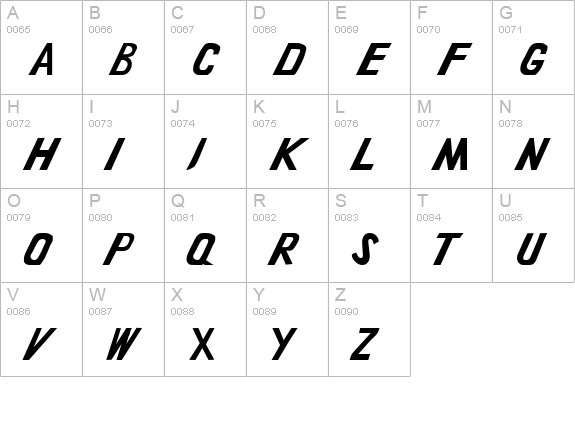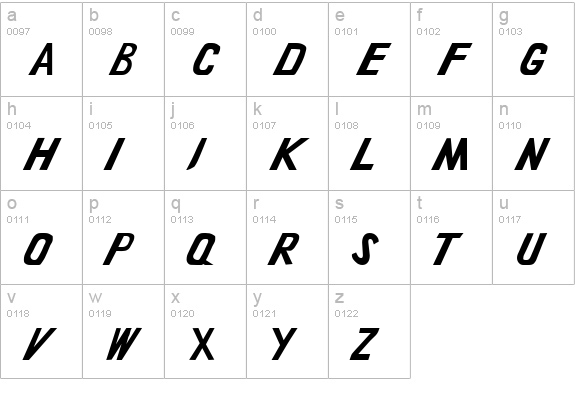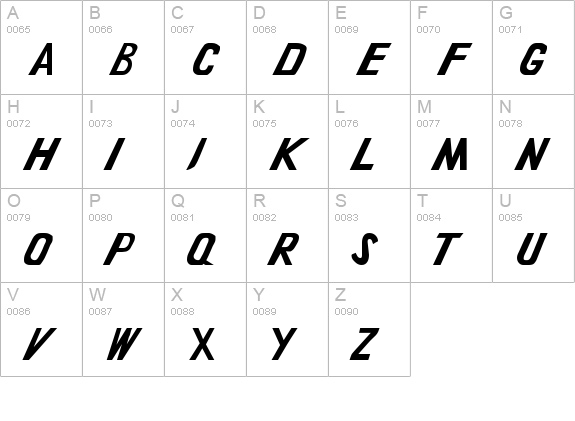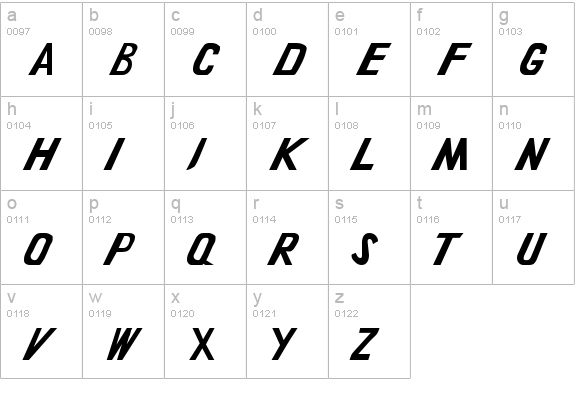
Salamander Font Details
Introducing Salamander, a captivating and versatile font that will bring your designs to life. With its unique and elegant style, Salamander is perfect for a wide range of projects, from branding and logos to invitations and packaging. This exceptional font features a harmonious blend of smooth curves and sharp edges, creating a visually stunning and distinctive look. Its graceful letterforms are meticulously crafted, exuding a sense of sophistication and creativity. Salamander offers a wide range of weights, from light to bold, giving you the freedom to experiment and create captivating typography. The versatility of this font allows it to be used in both modern and classic designs, making it a must-have for any designer's toolkit. But the best part? Salamander is absolutely free! Yes, you read that right. This exceptional font is freely available to download at FontsMarket.com. With just a few clicks, you can enhance your designs with this incredible typeface and take your projects to new heights. So whether you're a professional designer looking to add a touch of elegance to your work or a novice designer eager to explore the world of typography, Salamander is the perfect choice. Download it today and unlock the endless possibilities of this captivating font.